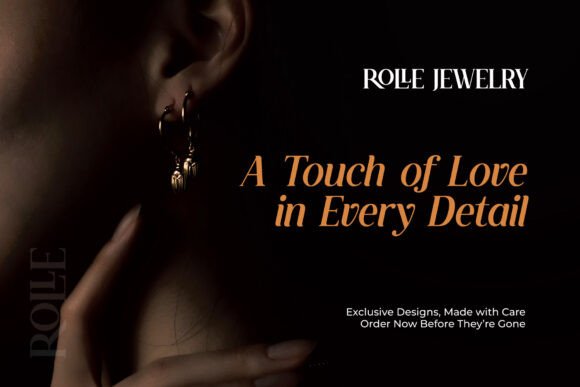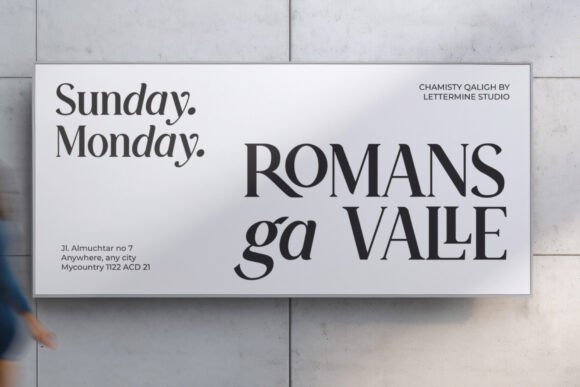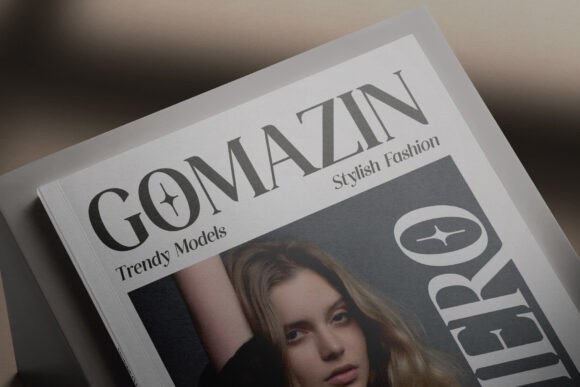
Introduction to Chamisty Qaligh Font
Have you ever found yourself stuck on a design project, searching for the perfect font to elevate your creative vision? That’s where the magic of Chamisty Qaligh Font comes in – a modern serif font that effortlessly blends classic elegance with contemporary style.
As designers, we’re always on the lookout for high-quality design resources that can give our projects a professional touch. And that’s exactly what Chamisty Qaligh Font offers – a versatile and stylish font that’s perfect for branding, editorial designs, and stylish headlines.
With its fine details and graceful curves, Chamisty Qaligh Font is an ideal design resource for anyone looking to add a touch of sophistication to their creative project. Plus, it’s available for free download, making it an accessible and valuable addition to any designer’s toolkit.
Key Features of Chamisty Qaligh Font
- Unique blend of traditional and modern design elements, making it a valuable resource for creative projects.
- High-quality font with a transparent background, ideal for graphic designers and artists looking for a design resource.
- Comes in a single weight, making it easy to use in various design contexts.
Honest Review: Chamisty Qaligh Font
I recently had the chance to work with the Chamisty Qaligh Font in one of my creative projects. Overall, I’m quite impressed with this font. One thing that works well is its unique blend of traditional and modern elements, which adds a nice touch to any design. The high-quality design makes it a valuable resource for designers looking for a distinctive look.
Here are some key features that I appreciate about this font:
- ✨ High-quality design with a transparent background, making it easy to use in various creative projects.
- ✨ Unique and creative style that sets it apart from other fonts.
However, I do have a few limitations to note:
- ⚠️ The font might not be suitable for all types of projects, especially those requiring a more minimalist approach.
- ⚠️ The font’s unique style might be overwhelming for some designs, so it’s essential to use it thoughtfully.
Overall, I’m impressed with the Chamisty Qaligh Font and would recommend it to designers looking for a high-quality design resource with a unique touch.
The Chamisty Qaligh Font is a unique and stylish design resource that can elevate your creative project to the next level. With its high quality and transparent background, this font is perfect for designers looking for a versatile and modern aesthetic.
Tips for Getting the Most Out of Chamisty Qaligh Font
To get the most out of the Chamisty Qaligh Font, try combining it with other design elements, such as images and graphics. You can also experiment with different font sizes, colors, and styles to create a unique and eye-catching design.
The Chamisty Qaligh Font is perfect for a variety of creative projects, including:
- Brochure design
- Business card design
- Website design